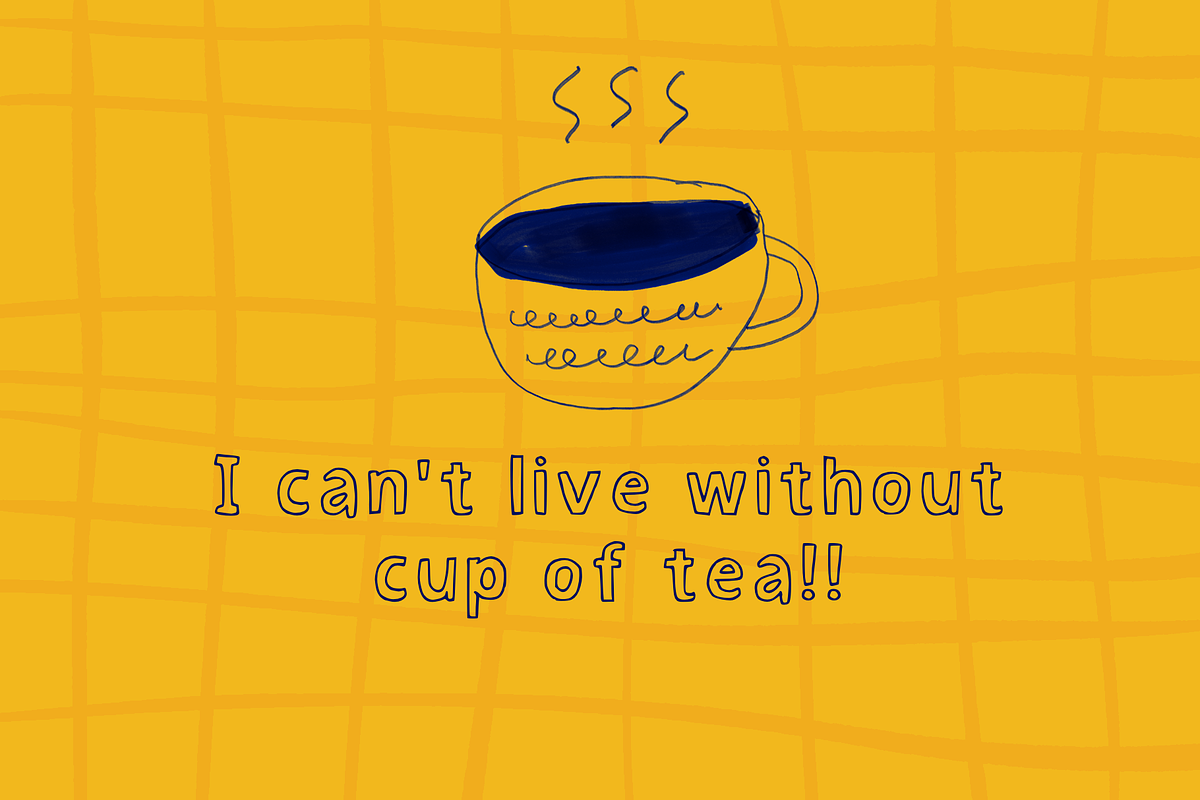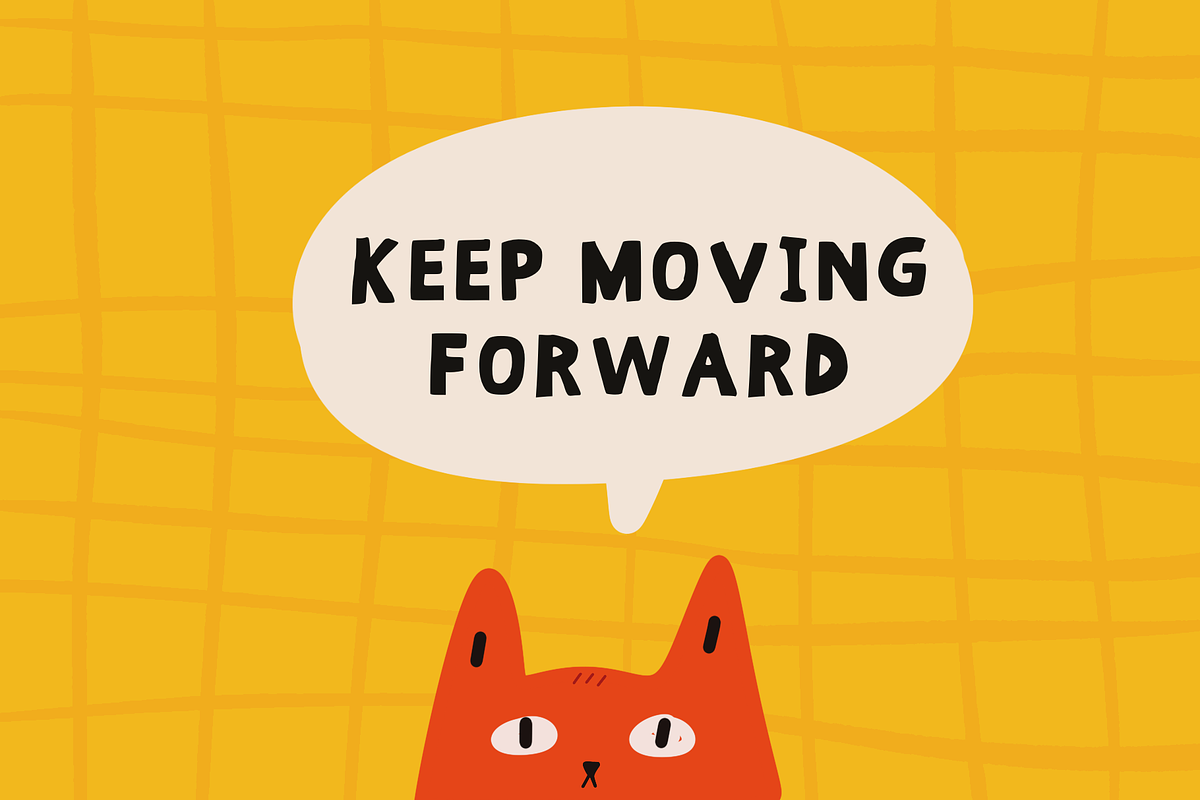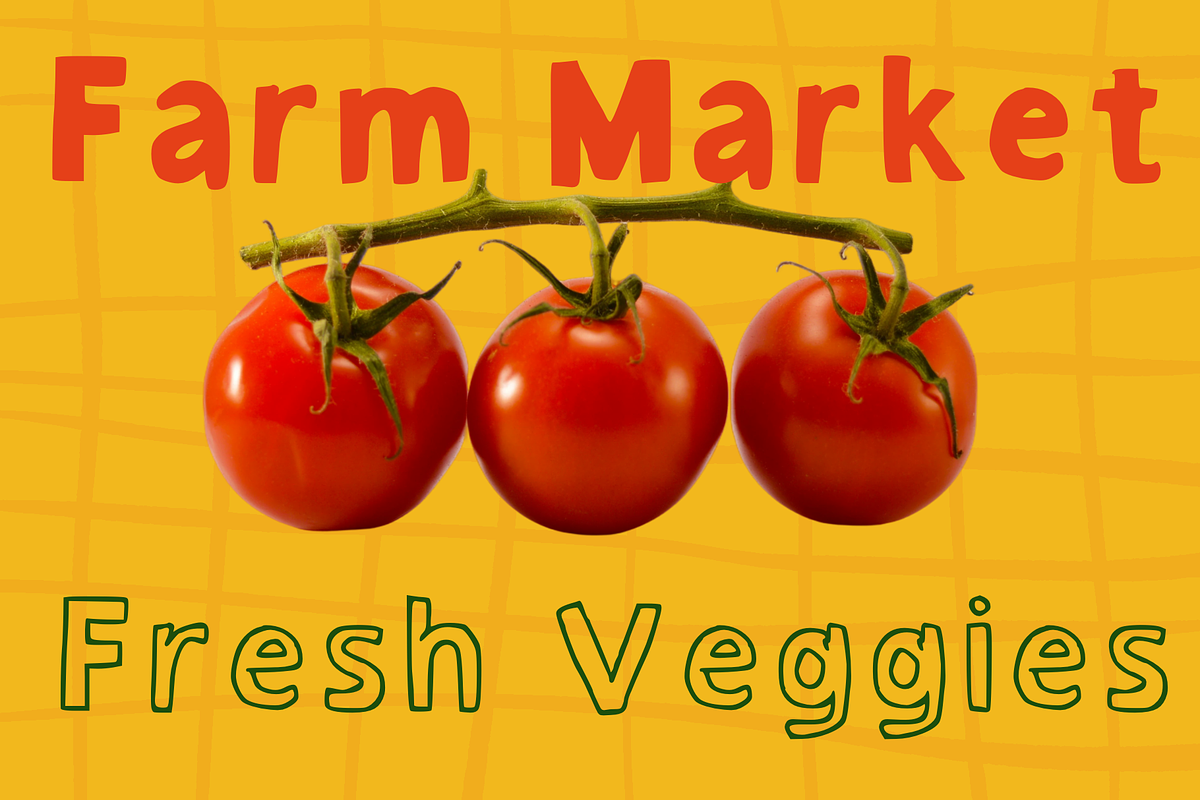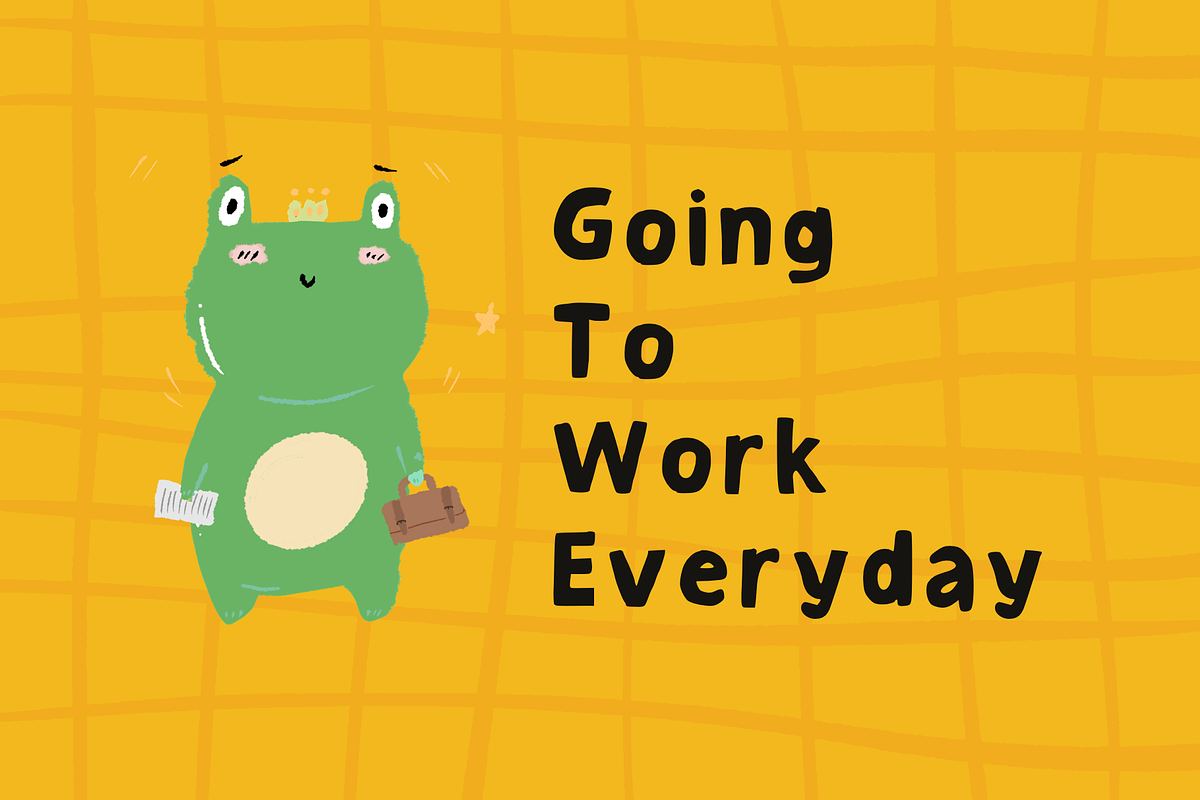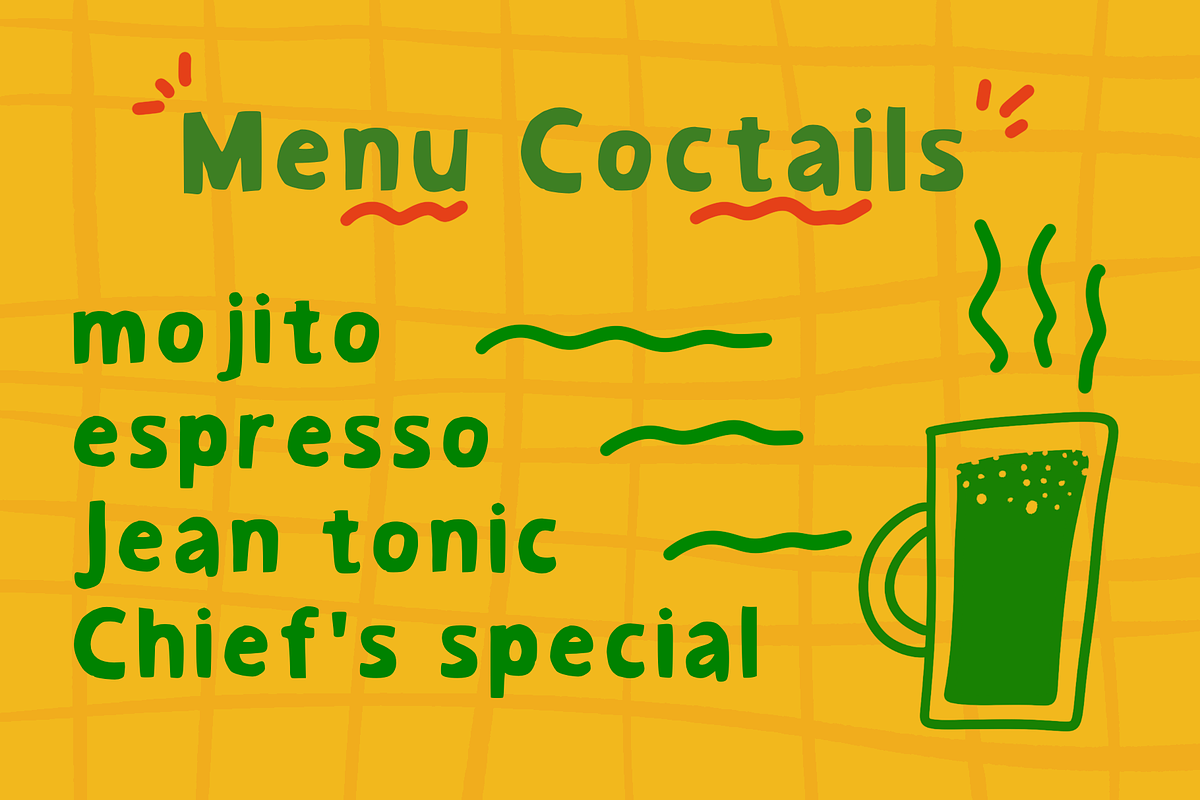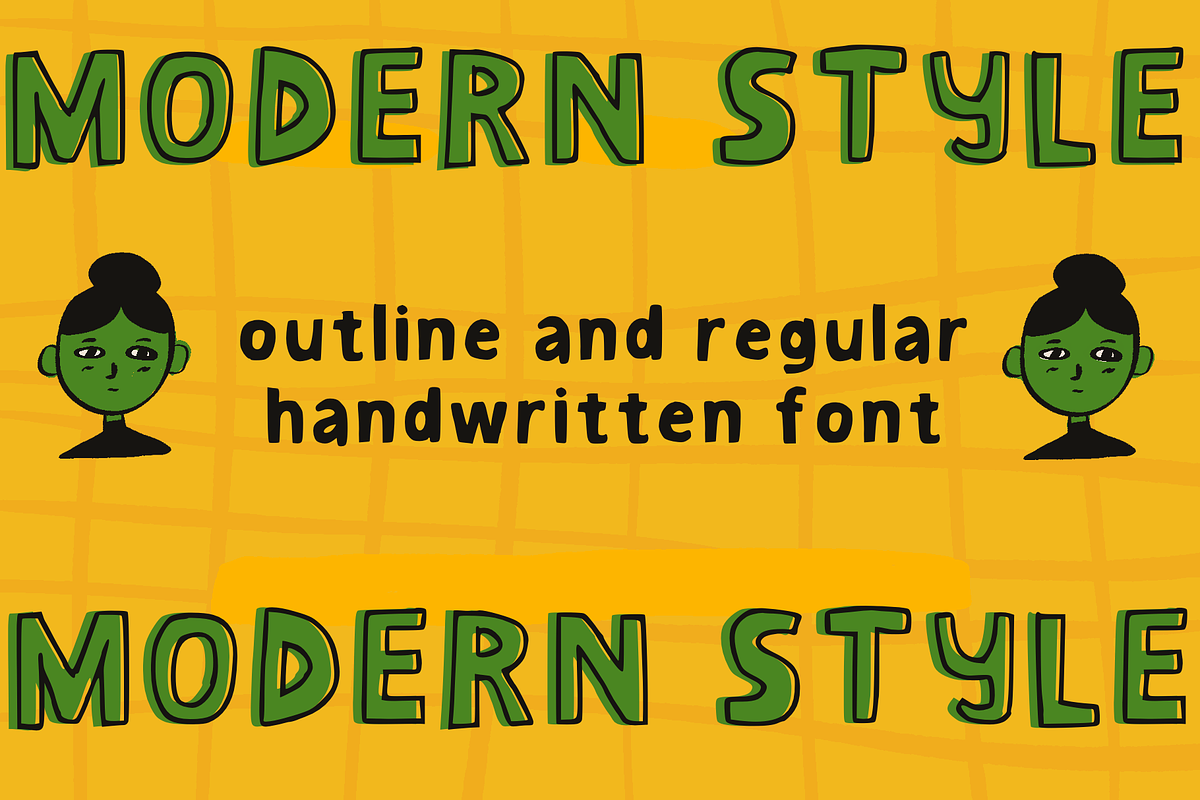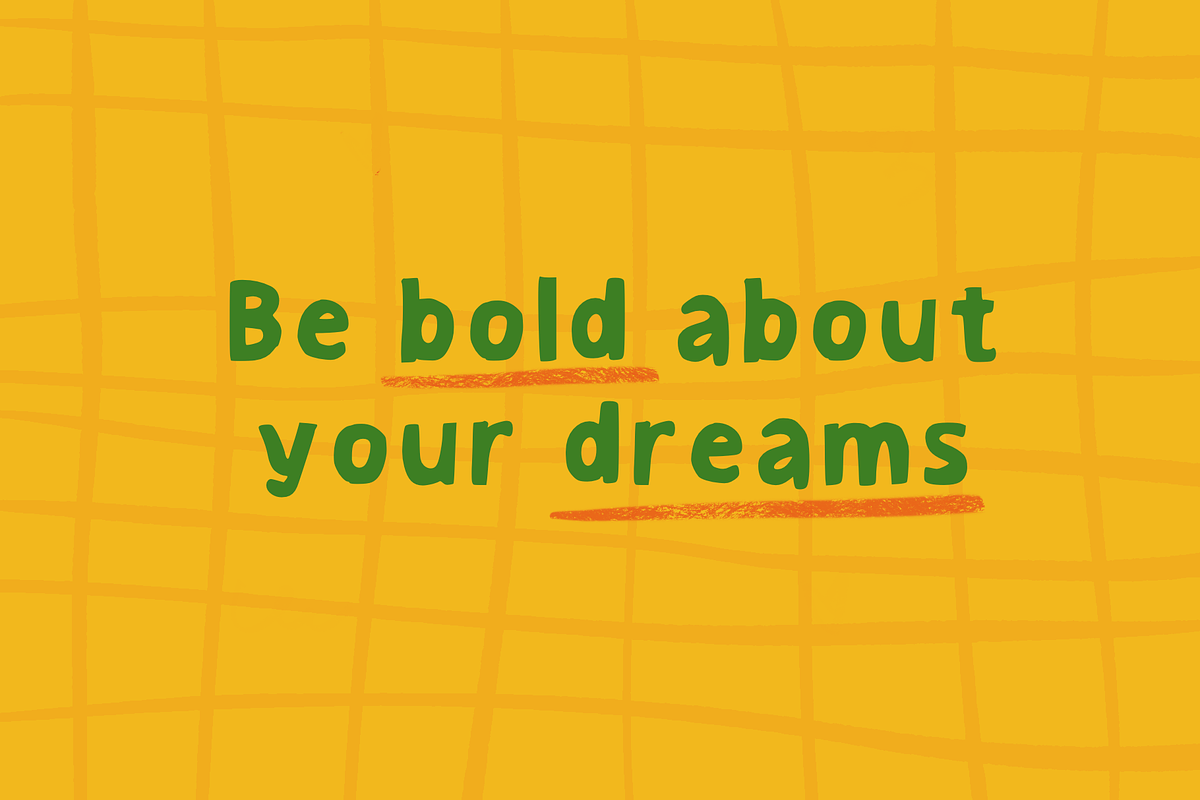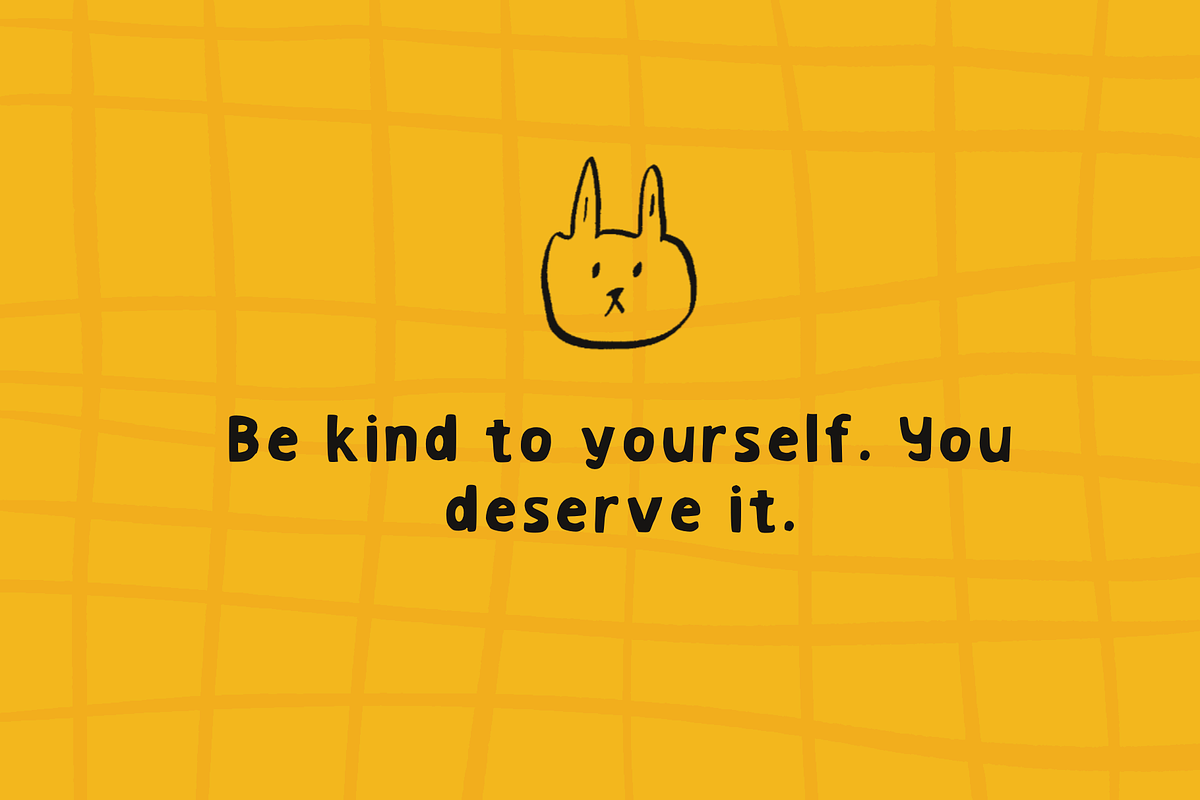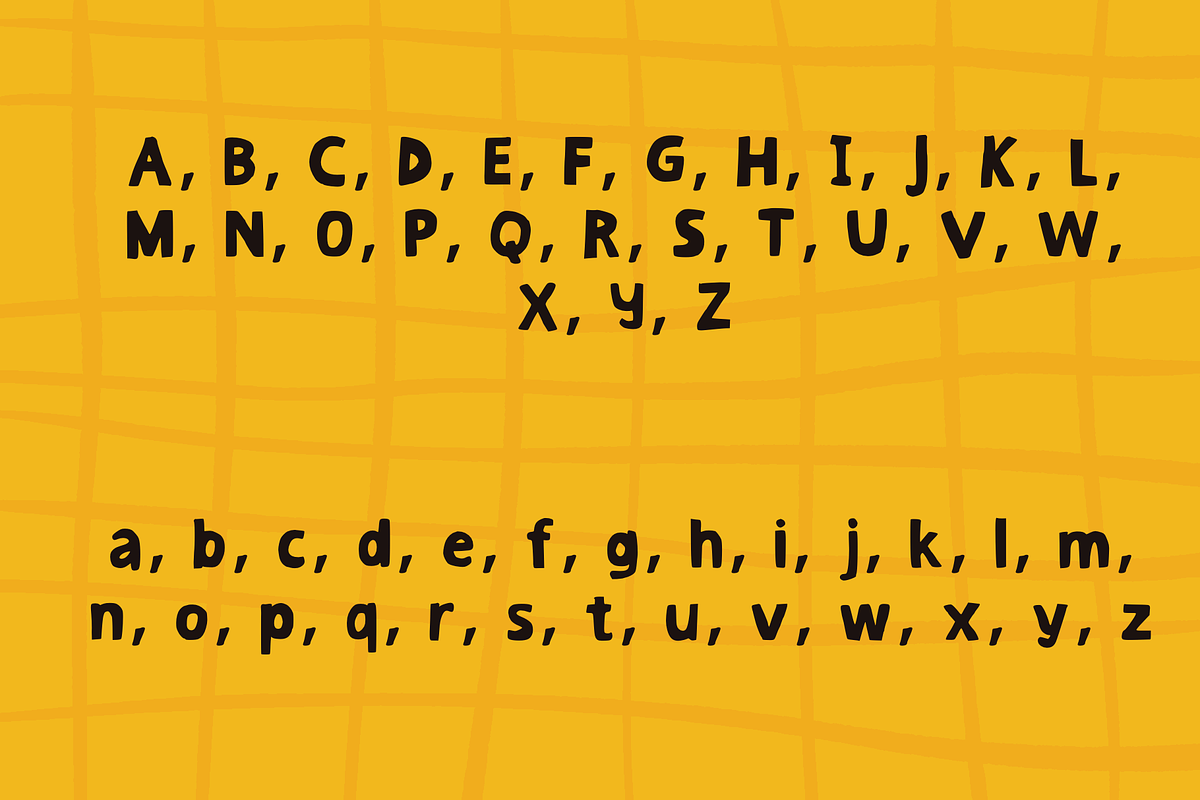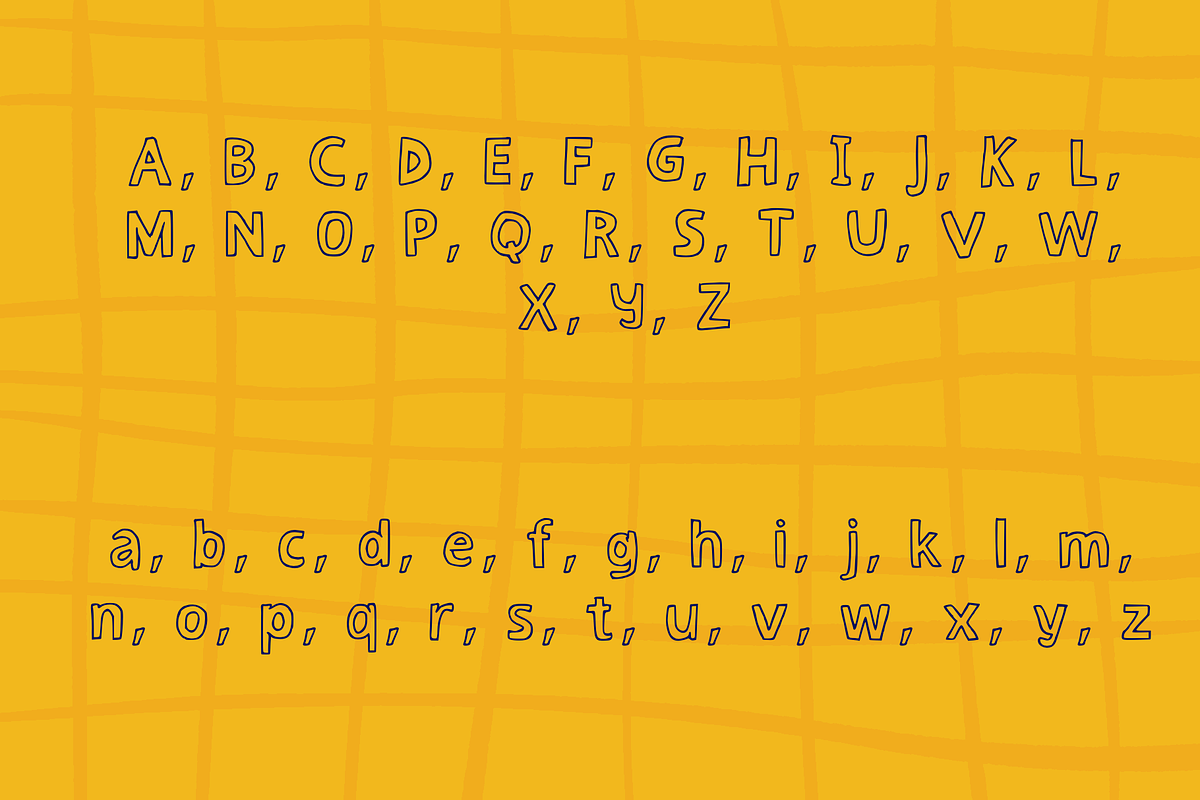
playful outline handdrawn font kit
Regular and Outline versions Language: English
Modern Style Regular: A solid, bold hand-drawn sans.
Modern Style Outline: A perfectly matched hollow version for layering or minimalist vibes. Full Uppercase & Lowercase alphabet. Basic punctuation (: ; ( ) ‘ “ , . ! ?)and numbers are available